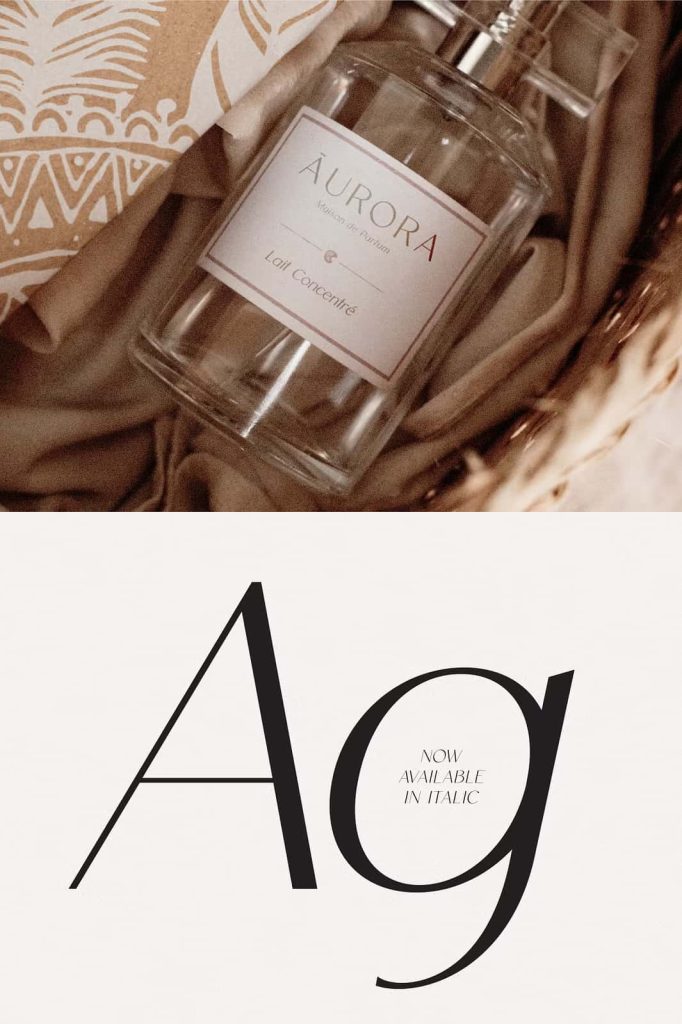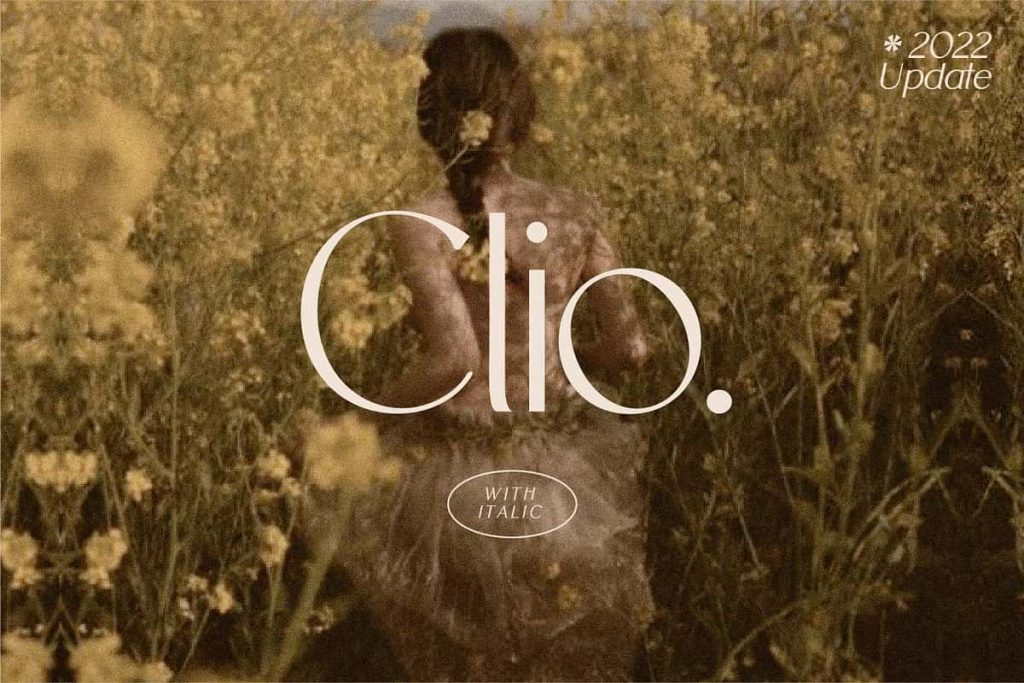
Clio Display Sans Serif Font
A Modern Typeface with Clean Visual Elegance
Clio is a refined display sans serif font created to deliver simplicity, clarity, and visual elegance in every design application. Built with a modern aesthetic in mind, this typeface emphasizes clean lines, balanced proportions, and a contemporary character that feels both professional and approachable. Clio is ideal for designers who value minimalism while still seeking strong visual impact. Its structure ensures that each letterform appears crisp and well-defined across both digital and print media.
The font was thoughtfully developed to support elegant-themed projects that require a polished and modern presentation. Whether you are working on a branding concept, editorial layout, or lifestyle-focused design, Clio provides the flexibility and sophistication needed to elevate your work. Its understated personality allows content to stand out clearly without unnecessary distraction, making it a powerful tool for visual communication.
Designed for Elegant and Lifestyle-Focused Projects
Clio was specifically designed to support elegant and lifestyle-oriented design projects. Its clean geometry and harmonious spacing make it highly suitable for logos, headlines, magazine titles, and promotional materials that demand clarity and refinement. The font communicates a sense of calm confidence, making it a strong choice for fashion brands, wellness products, interior design studios, and creative agencies.
When used in logo design, Clio helps establish a professional and modern brand identity. Its balanced letterforms ensure that logos remain readable at various sizes while maintaining a premium appearance. For editorial and magazine layouts, Clio enhances readability while adding a contemporary edge that aligns well with modern publishing standards.
Perfect for Titles, Headlines, and Editorial Use
As a display sans serif, Clio excels in titles and headlines where visual presence matters most. The font draws attention without overpowering the surrounding content, allowing designers to create strong typographic hierarchies with ease. Its clean construction ensures that headlines remain legible even when used in bold or large-scale applications.
Clio also works effectively in magazine spreads and editorial designs. Its modern appearance pairs well with high-quality imagery and structured layouts, helping to create a cohesive and visually appealing reading experience. Designers can confidently use Clio to establish a consistent tone throughout their editorial projects.
Clean Design with Functional Typography Features
One of Clio’s strengths lies in its functional typography features. The font includes standard ligatures that improve text flow and visual harmony. These ligatures help create smoother connections between specific letter combinations, enhancing the overall reading experience and giving the text a more refined appearance.
The simplicity of Clio does not limit its versatility. Instead, it allows the font to adapt seamlessly to a wide range of design contexts. From minimalist branding to sophisticated editorial layouts, Clio remains visually consistent and reliable. Its clean design ensures compatibility with other typefaces, making it easy to pair with serif or script fonts when creating layered typographic systems.
A Versatile Typeface for Modern Designers
Clio is a practical choice for designers who want a dependable display sans serif font that performs well across multiple platforms. Its clarity ensures excellent readability on screens, while its precise construction maintains quality in print applications. This versatility makes Clio suitable for websites, social media graphics, marketing materials, and printed publications.
By choosing Clio, designers gain access to a font that supports creativity without compromising usability. Its elegant appearance and clean structure make it a valuable addition to any professional font library. Whether used for branding, lifestyle design, or editorial projects, Clio consistently delivers a modern and visually engaging typographic experience.